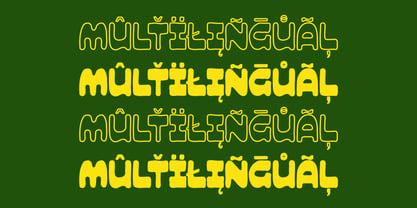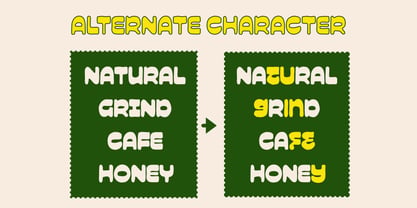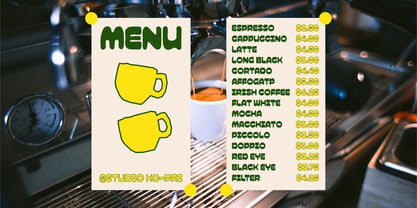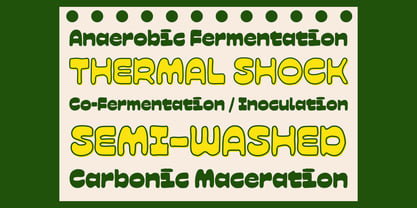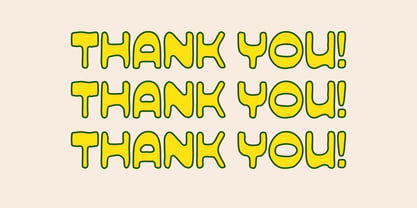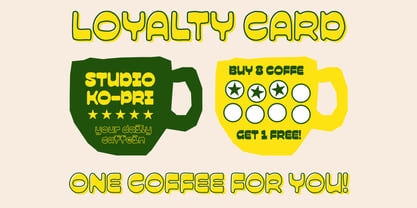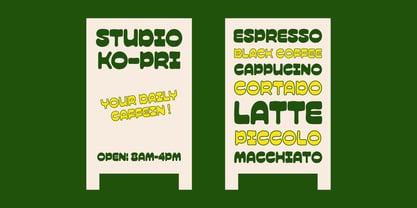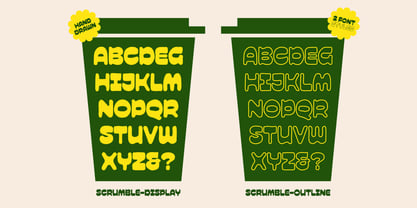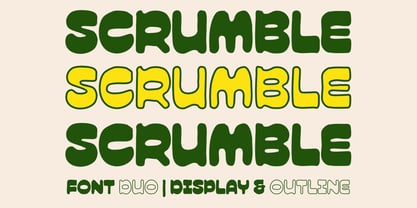
Scrumble
La familia tipográfica Scrumble fue diseñada por Aprian Sembada y publicada por Griyotype. Scrumble contiene 2 estilos y opciones de paquete familiar. Más información sobre esta familia
Bring warmth and personality to your typography with Scrumble, a cheerful hand-drawn display typeface inspired by coffee culture, handmade signage, and playful retro aesthetics. Its thick rounded forms, organic imperfections, and charming alternates ensure that every headline feels friendly and approachable. The included Display and Outline styles work beautifully together, allowing for layered text effects that stand out on packaging, menus, branding, posters, and merchandise. Whether you're designing for a local café, a food brand, a children's project, or a vintage-inspired identity, Scrumble adds a handcrafted touch that's impossible to ignore. It's perfect for creating engaging branding, eye-catching editorial designs, and vibrant promotional materials. Designed for bold ideas and made to spread smiles.